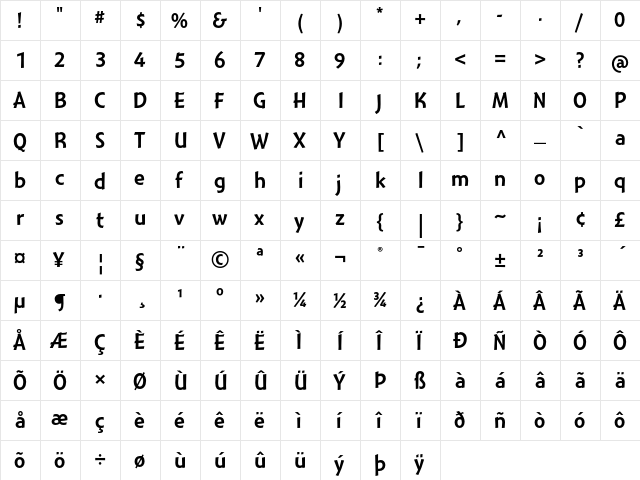
Montara Gothic
| Style | Gothic |
| Designer | Jim Parkinson |
Design Context for Montara Typeface
Montara has the quiet confidence of well-executed sans-serif typography: versatile, unobtrusive, and dependable at any size.
Font Pairing: Works well alongside a characterful serif or display font that can carry the expressive load while Montara handles the functional copy.
Pro Tip: Use Montara for UI labels, navigation, and short-form body copy where clean legibility is the priority.